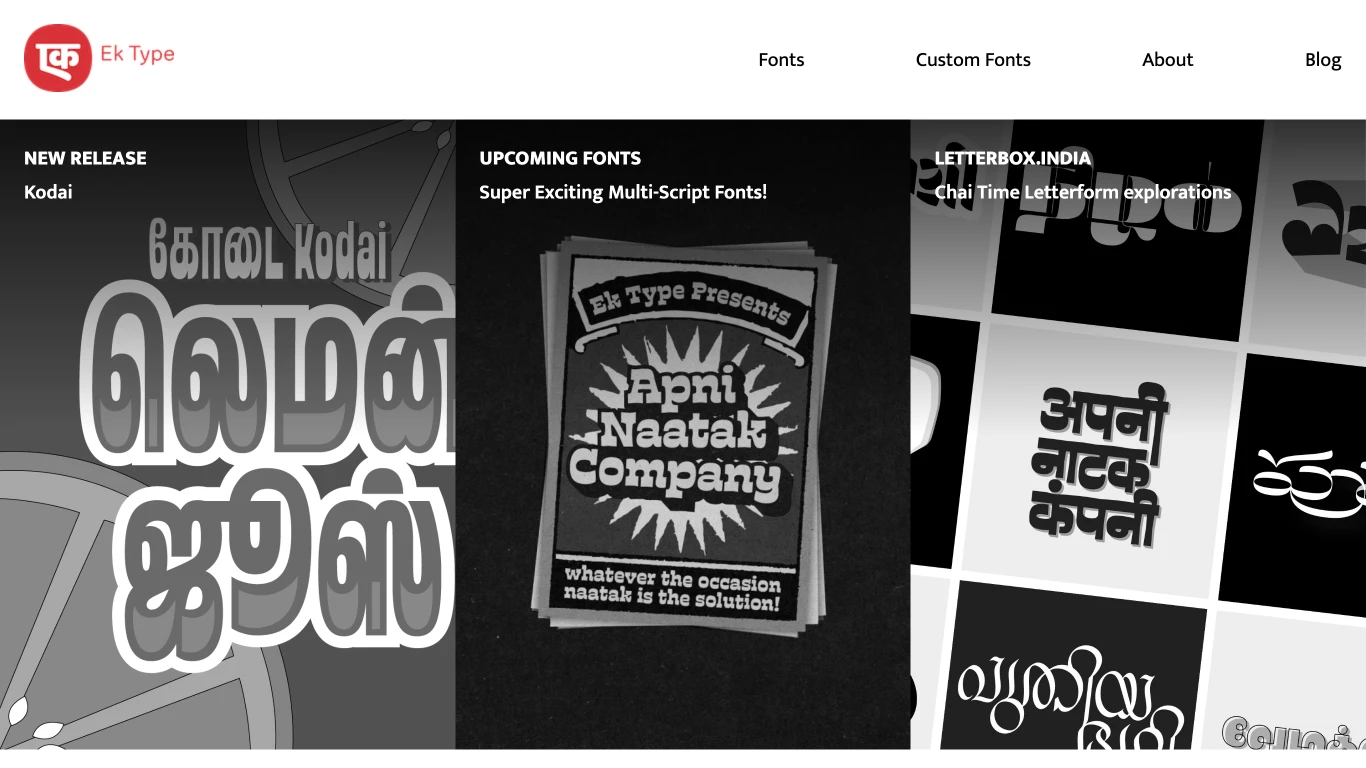
Ek Type
India
2011
​Ek Type is a collaborative type design studio based in Mumbai, India, specializing in developing fonts across all Indian languages, many of which are multi-script. Founded by Sarang Kulkarni, an alumnus of Sir J. J. Institute of Applied Art, the studio serves as an open, collaborative platform under 'one' roof to develop and sell fonts, inviting others to be a part of their team. Their unique approach involves creating contemporary Indian typefaces that balance a common visual grammar with the distinct identities of each script.